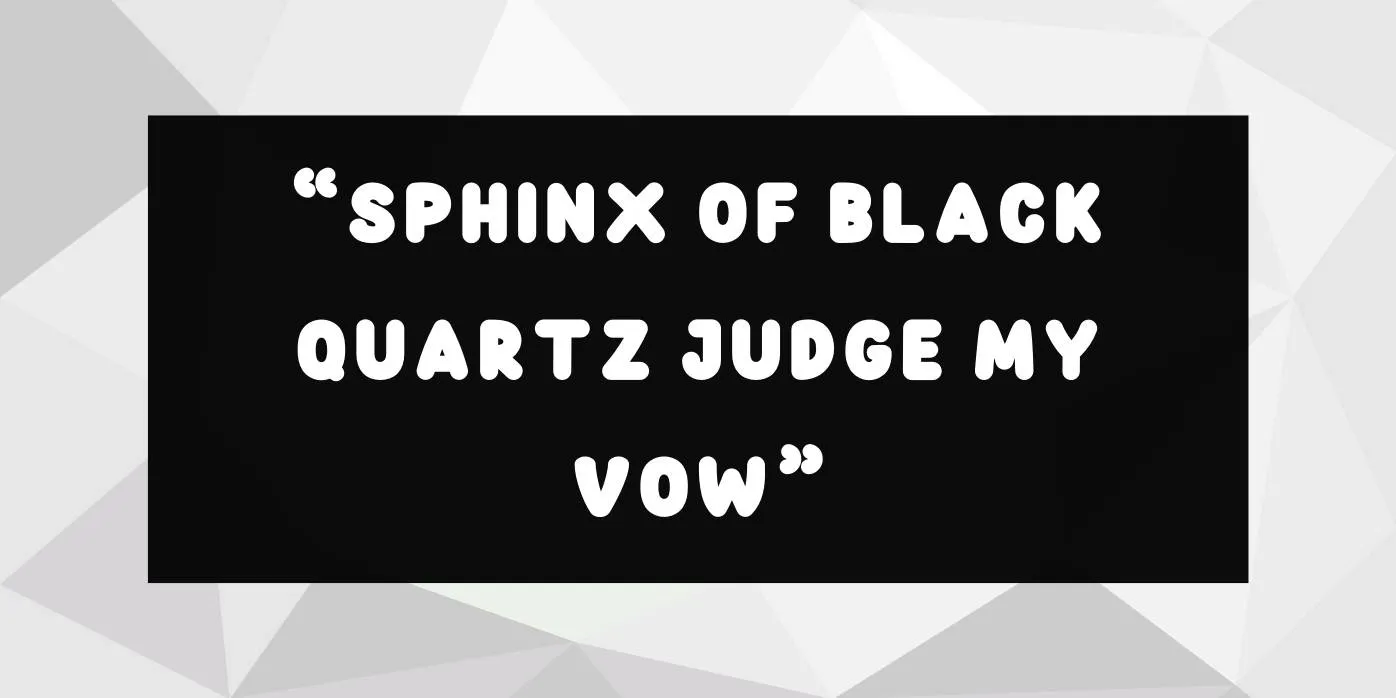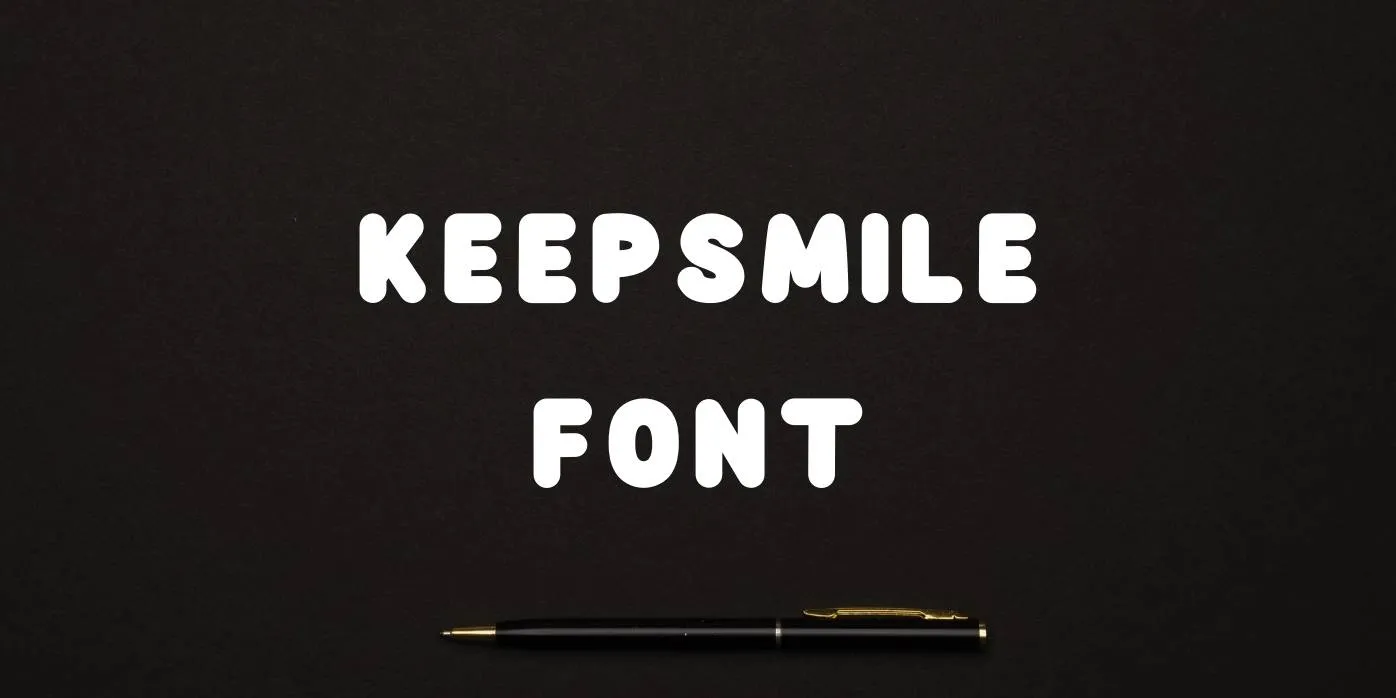
Keepsmile Font
Keepsmile Font was created by Type Associates in 1995. It is a fancy typeface with a humanist design. The font was inspired by the work of Edward Johnston, the designer of the London Underground typeface. This font has been used by many companies and organizations, including Apple, Microsoft, and the United Nations.
The font is available in two weights, Regular and Bold. You can mix the typeface with others and can be used as a pairing with mustang font a basic sans serif category font you can download free from our web portal. The glyph of this font has been designed to be easily readable. The vertical strokes are thicker than the horizontal strokes, which makes the letters appear more stable.
The counters (the empty space inside the letters) are large, which also makes the font more legible.